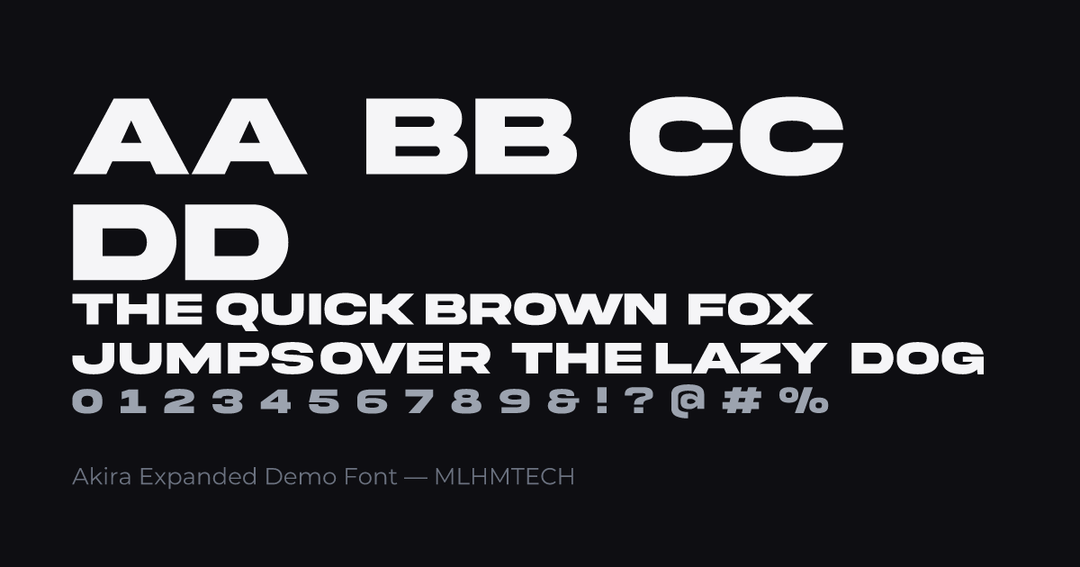
Akira Expanded Demo Font
Akira Expanded Demo is a bold, expanded sans-serif font that makes a strong statement. Perfect for headlines, posters, and branding.
Akira Expanded is a powerful, condensed-style sans-serif with an expanded, wide stance. Its geometric forms and heavy weight give it a modern, industrial feel, ideal for grabbing attention.
Use it for impactful headlines, logos, posters, or any design that needs a bold, confident typographic voice.